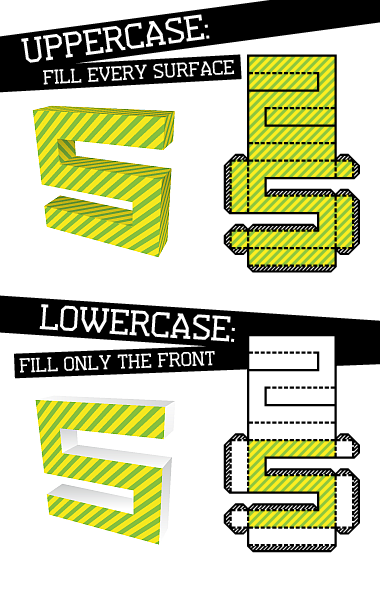
• This collection of weird shapes is the fill font for Punched Out, so you can easily make your own custom made design on the letters. This can look pretty cool I'm sure...
The lowercase are if you really just wanna fill the front of your letter, the uppercase are for all visible surfaces.
Here's how it works:
(I'm sorry this isn't another real life sample... I just don't have the time for it right now.) (You could ask now how I have the time to fontstruct then, but then I'd only sigh and start wondering what's ever gonna become of me.)
Very impressive demo. You carefully planned for the potential applications.
It would be nice to have a set of these letters printed on cardboard, different colour patterns on them, and give them to primary school kids. While playing with scissor, glue and papercraft, they would learn the alphabet, touch and feel the body and voids of each letter and sign. Furthermore, it would greatly improve their vision and concept of 3D space. Well, it's just an idea.
Yeah, I've thought about if this wasn't more supposed to be for kids too when I was cutting and gluing to get the real life sample together too, hehe... But seriously, this would definitely be a nice application of this. Stimulates a lot of different abilities. (At least designing the thing felt like it reactivated brain regions I haven't used in a while.)
The shapes of the letters could be a little problem though... I don't think you want your kids to get a pixelated view of the world already when they're learning the ABC. ;)
you just coped a beter font proof is that its cloned from punch out
this is a really cool idea, making letters in 3D out of paper! how do you fill? do you have to use a program like illustrator or indesign? can you do this with word?